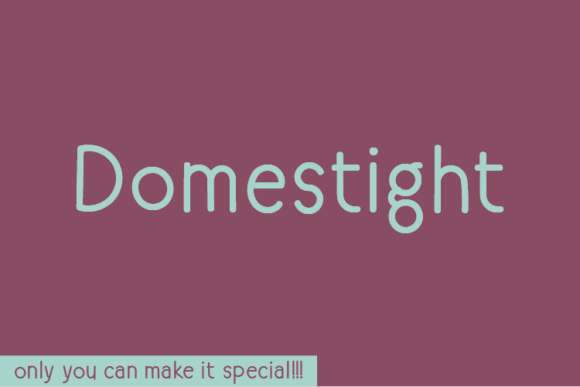
Introducing Domestight Font, an artistic, script, and eye-catching creation by Hanna Bie that will leave a lasting impression on your projects.
Welcome to the captivating world of Domestight Font, where handwritten artistry meets digital elegance. This remarkable font boasts a natural handwritten charm, meticulously crafted without altering a single node in each character's indentation. This unique approach lends Domestight Font an organic, personal feel that will bring your designs to life.
Step into the realm of creativity with Domestight Font. Its enchanting curves and whimsical strokes are perfect for adding a touch of warmth to your quotes, notes, tees, and any product design you can imagine. Domestight Font is designed to evoke emotions, making your words and designs resonate with your audience.
This versatile font is your perfect partner for crafting stunning logos, memorable branding materials, heartwarming greeting cards, and social media posts that shine. With its ability to convey a wide range of emotions, Domestight Font can transform your creative vision into a tangible masterpiece.
What sets Domestight Font apart is its inherent charm and authenticity. In an era of digital perfection, this font embraces the beauty of imperfections, giving your designs a genuine, handcrafted feel. Each letter dances across the page, telling a story of its own.
With Domestight Font, you have the power to create designs that touch hearts, designs that leave an indelible mark on the minds of those who see them.
Join the growing community of designers, artists, and creatives who have fallen in love with Domestight Font. Let your imagination soar and watch as your creative ideas come to life with this captivating font.